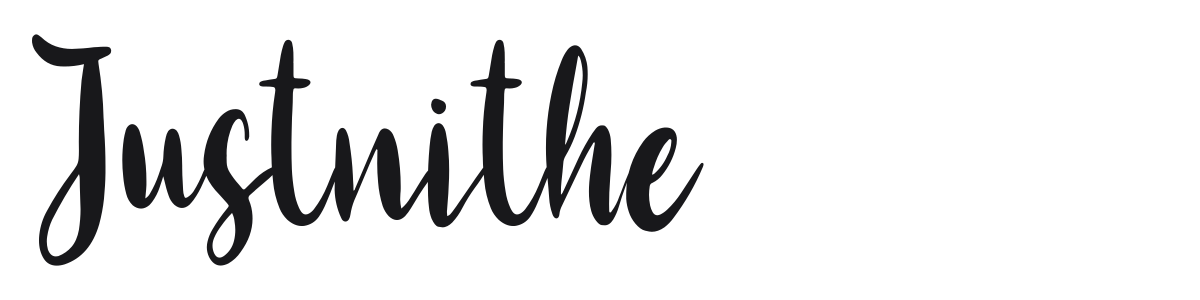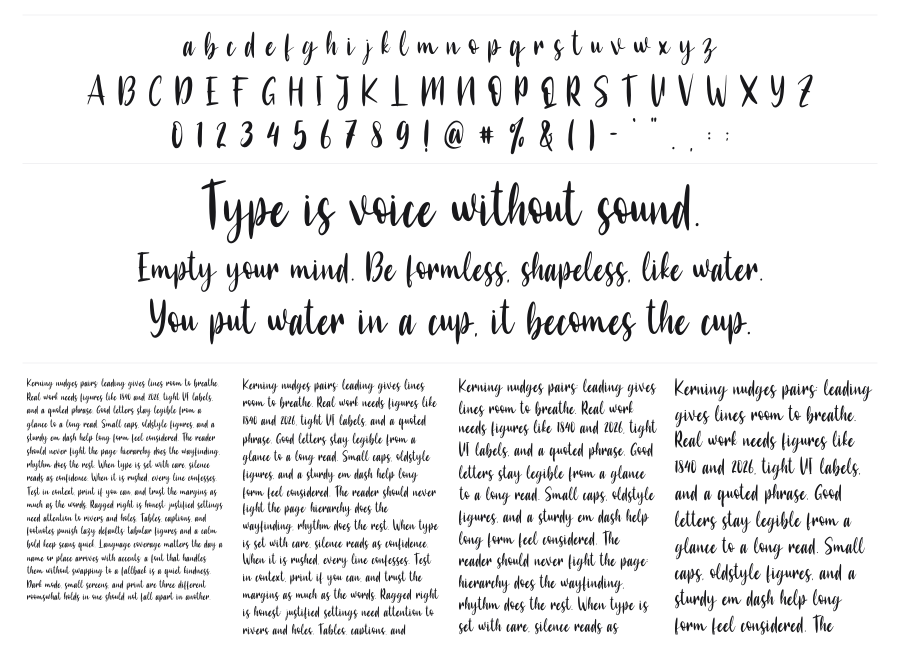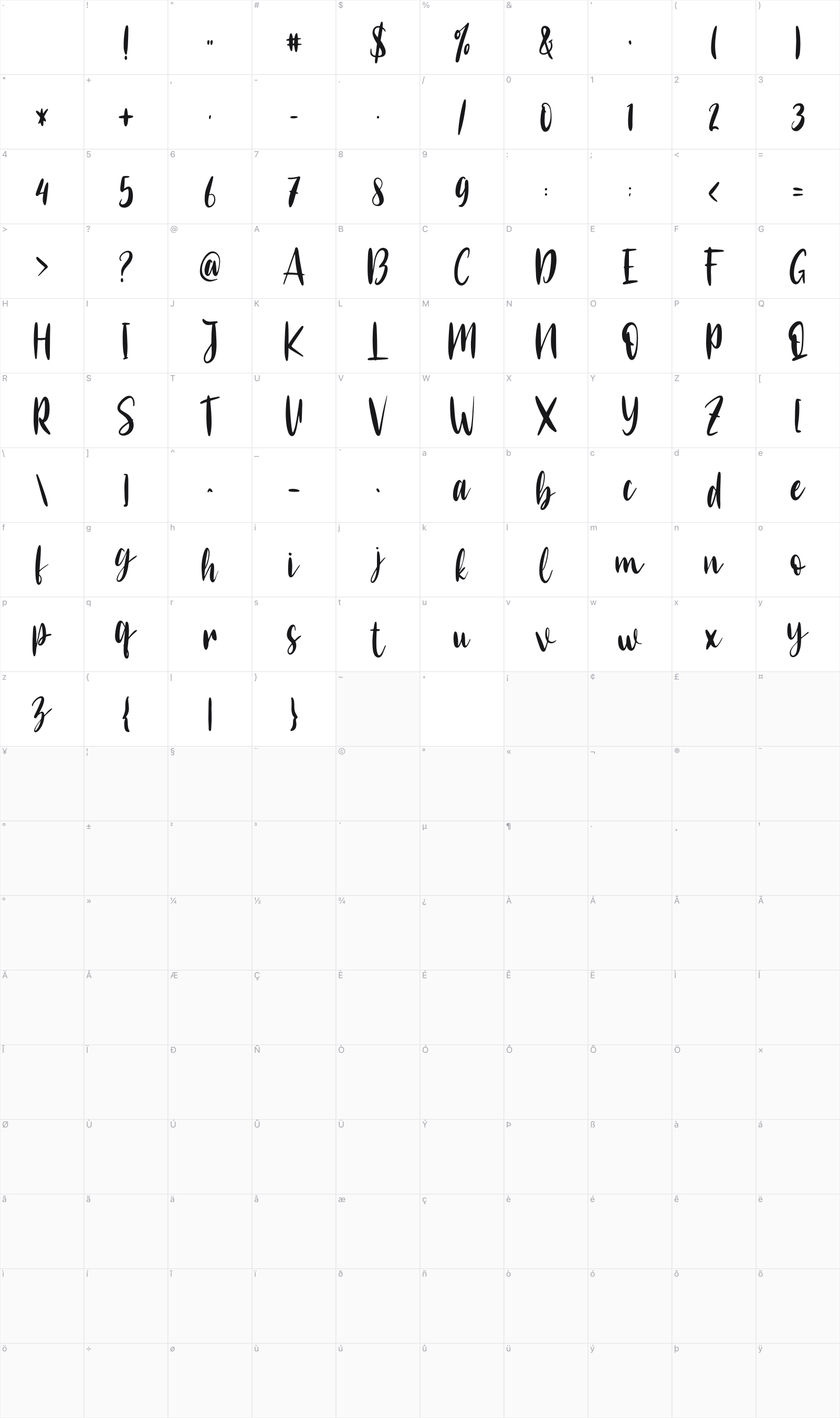
Justnithe
Justnithe is a contemporary casual script with lively bounce and fluid ink-style strokes. The high contrast between thick downstrokes and delicate hairlines gives it a calligraphic richness, while the natural rhythm keeps it feeling approachable rather than stiff. It works well at large sizes for wedding stationery, branding, and lifestyle packaging.